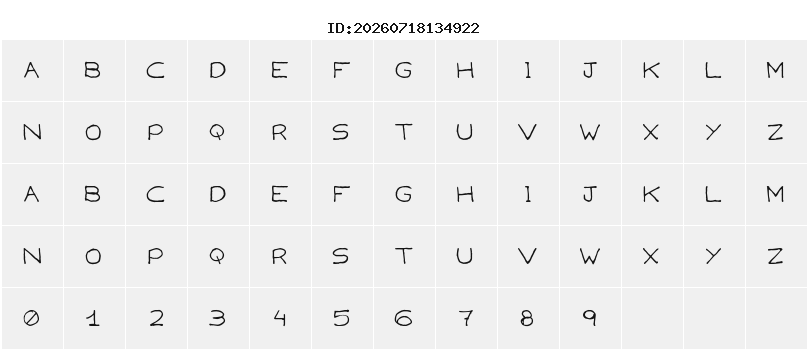
• Font Name: Capsies
About Capsies.ttf
Capsies.ttf is a modern, elegant sans-serif font designed for ultimate readability and visual harmony. Perfect for branding, headlines, web design, and print materials.